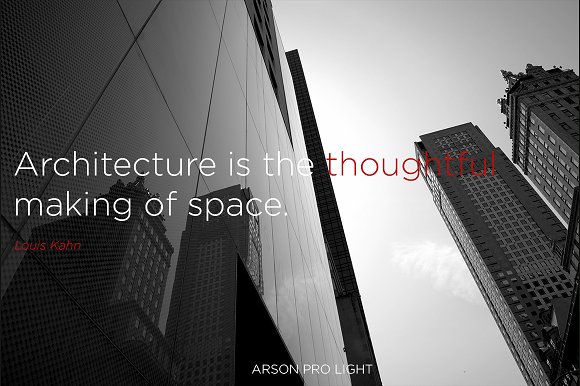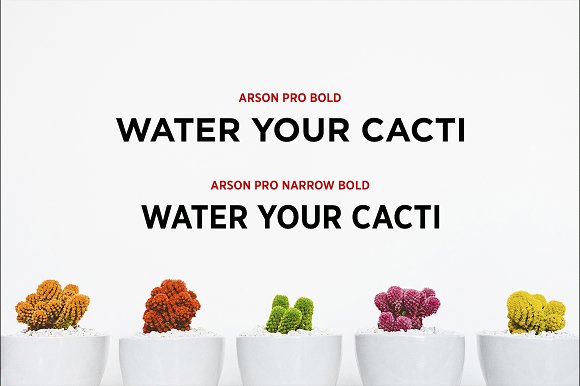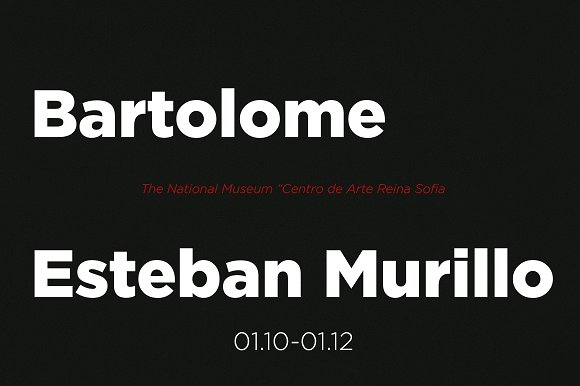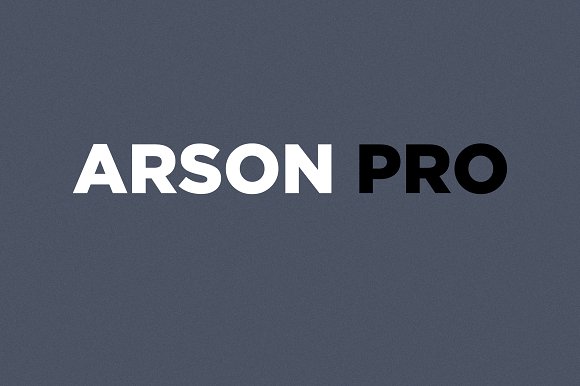
Arson Pro Sans Serif Fonts
Arson Pro is the perfect font for publishing, titles, books, magazines and corporate design, logotypes, branding, packaging and more!
Arson includes full support of Basic and Extended Latin, Cyrillic and limited support for Greek.